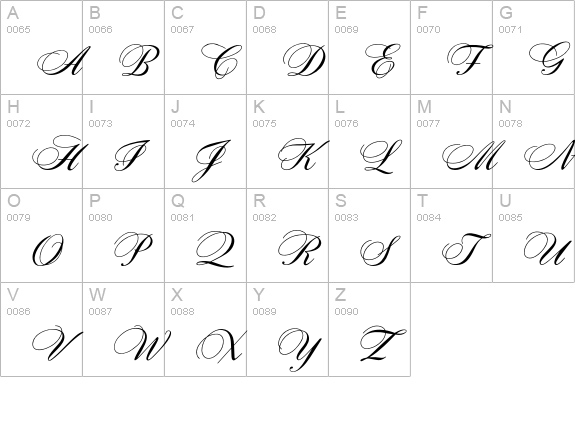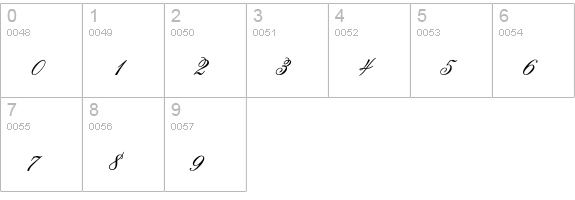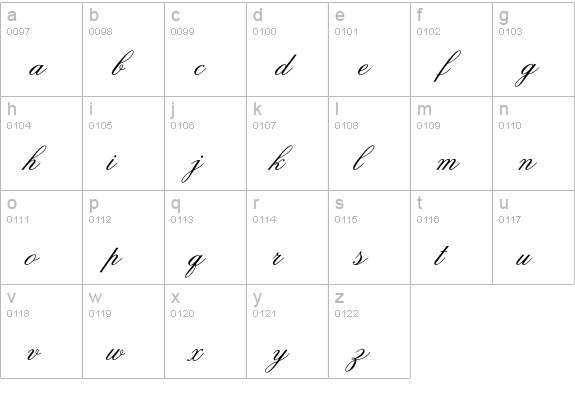
OPTICits Font Details
Introducing OPTICits font - a modern and stylish typeface that is sure to make your designs stand out. Featuring sleek lines and a contemporary feel, OPTICits font is perfect for a wide range of projects, from branding to editorial design. This versatile font is not only visually striking but also easy to read, making it ideal for both headlines and body text. Its unique design elements add a touch of sophistication and elegance to any project. And the best part? OPTICits font is completely free to download at FontsMarket.com! Don't miss out on this amazing opportunity to enhance your designs with this beautiful and professional font. Download OPTICits now and take your projects to the next level.